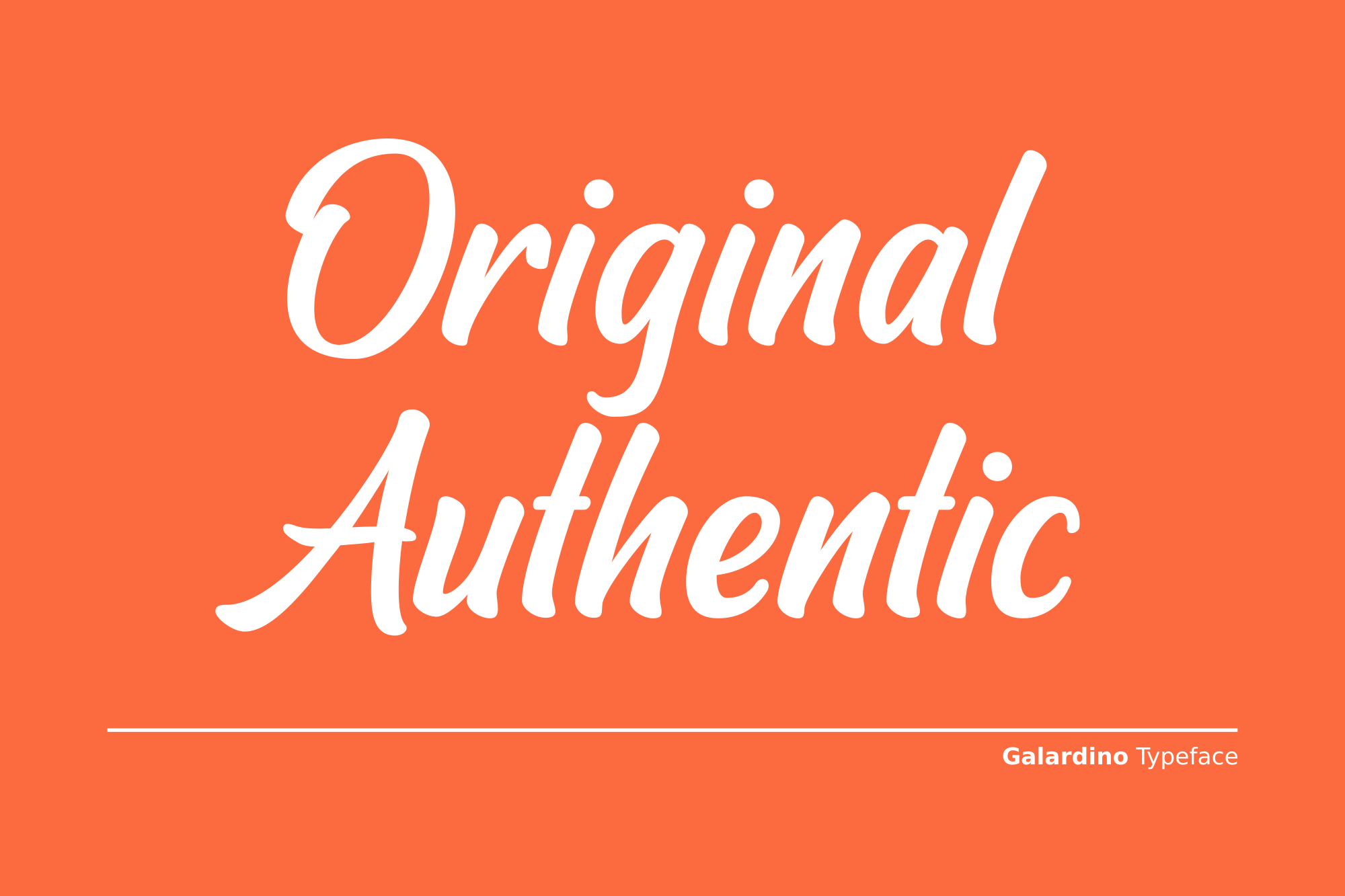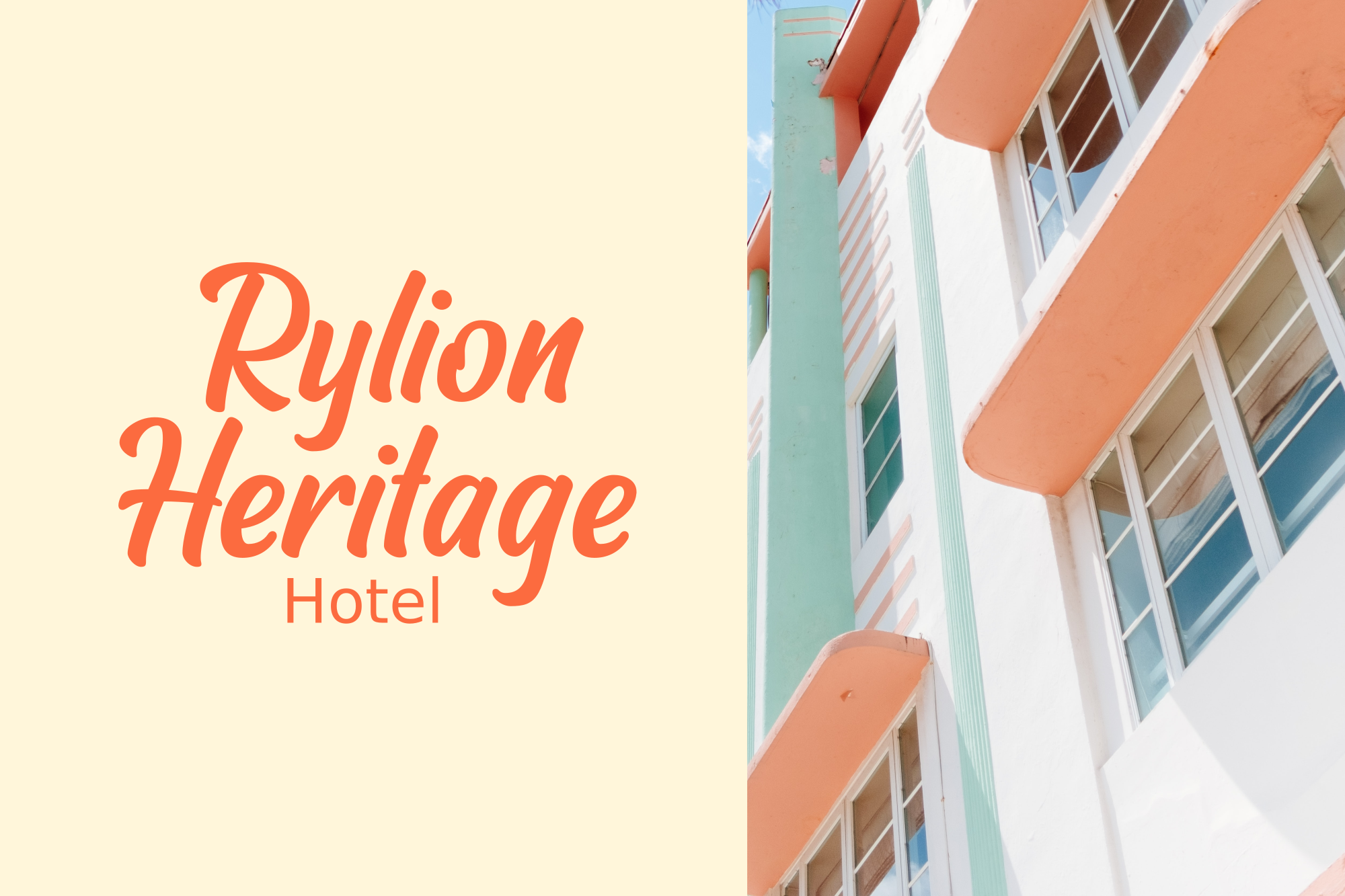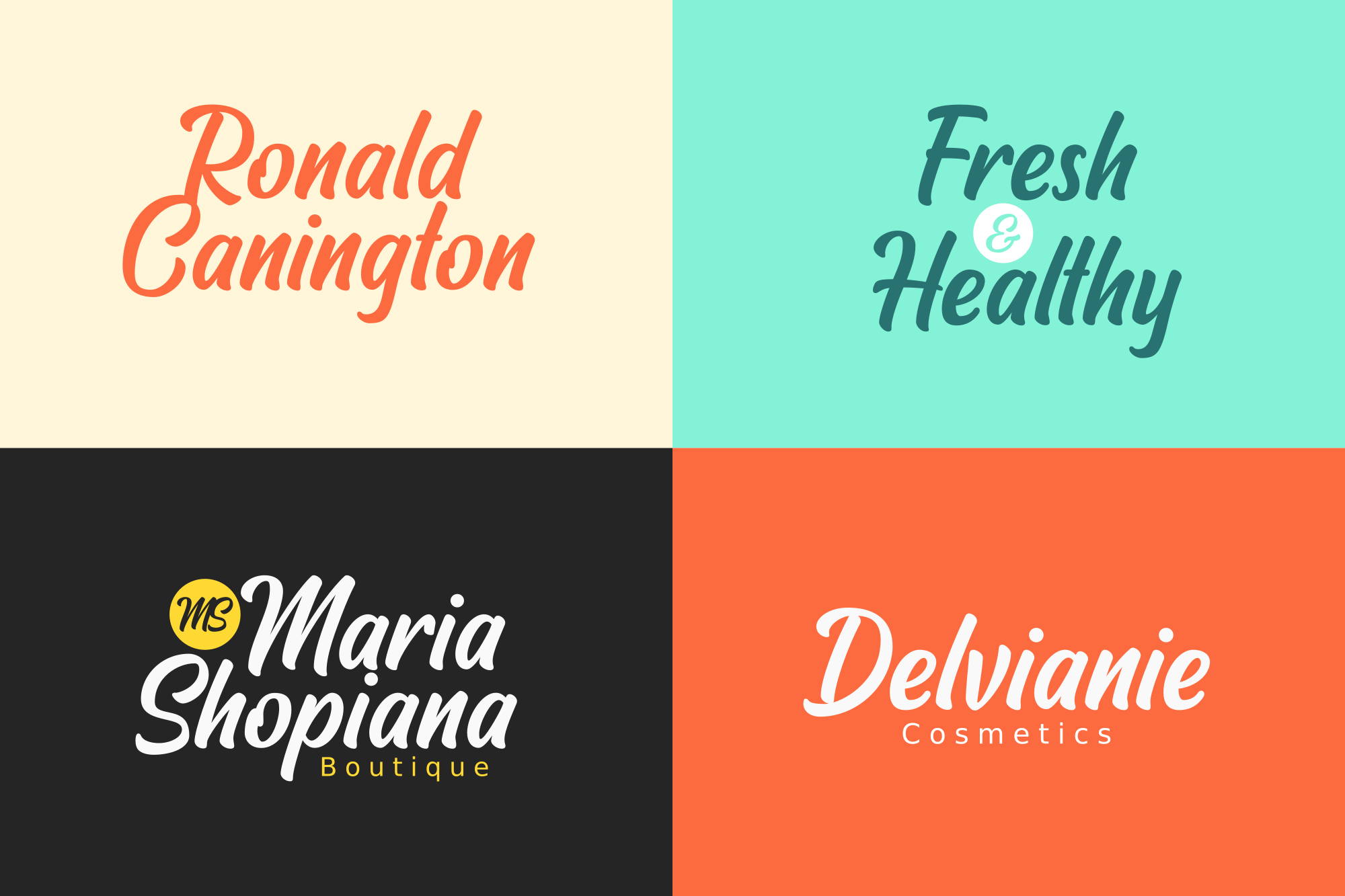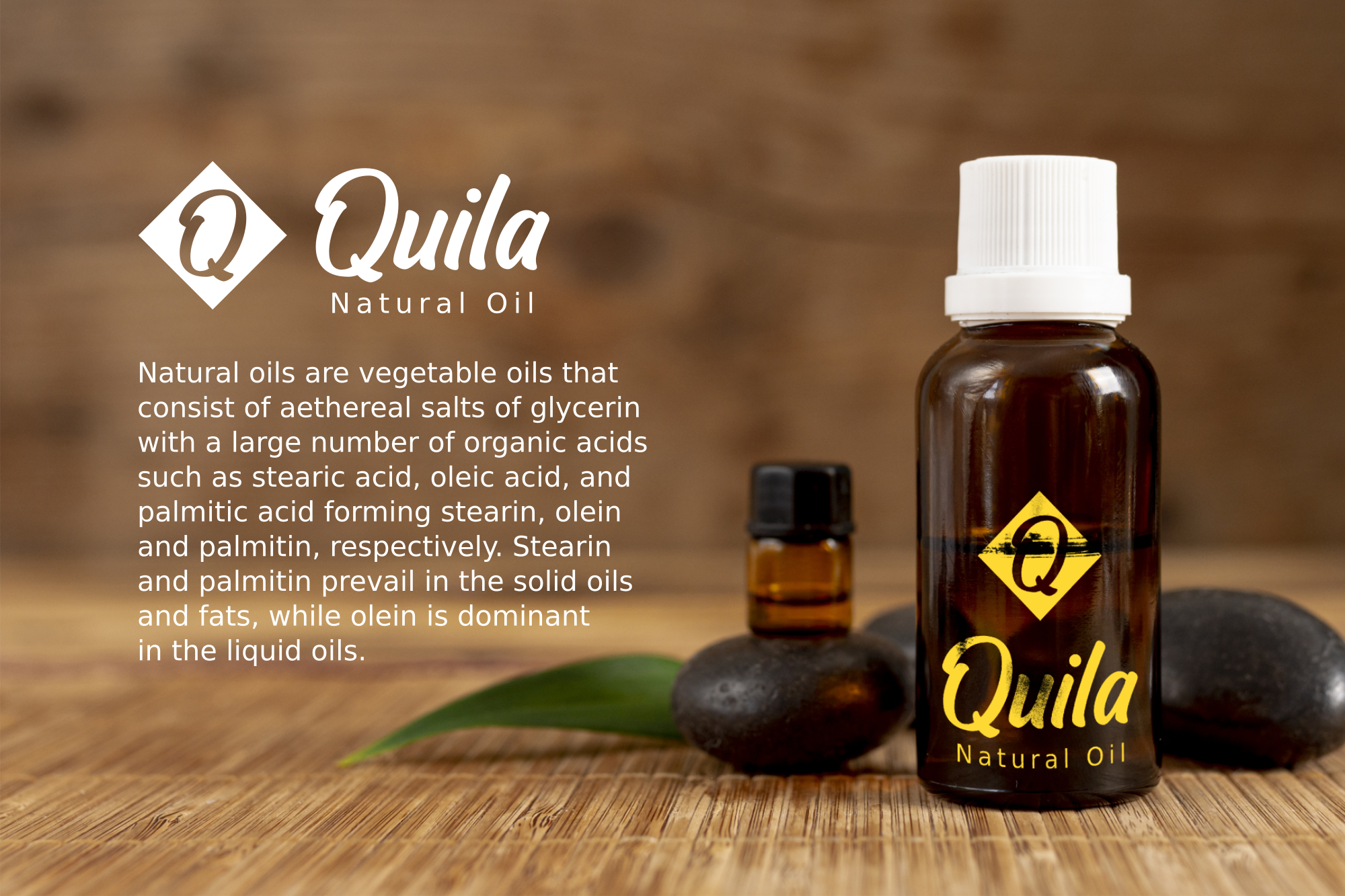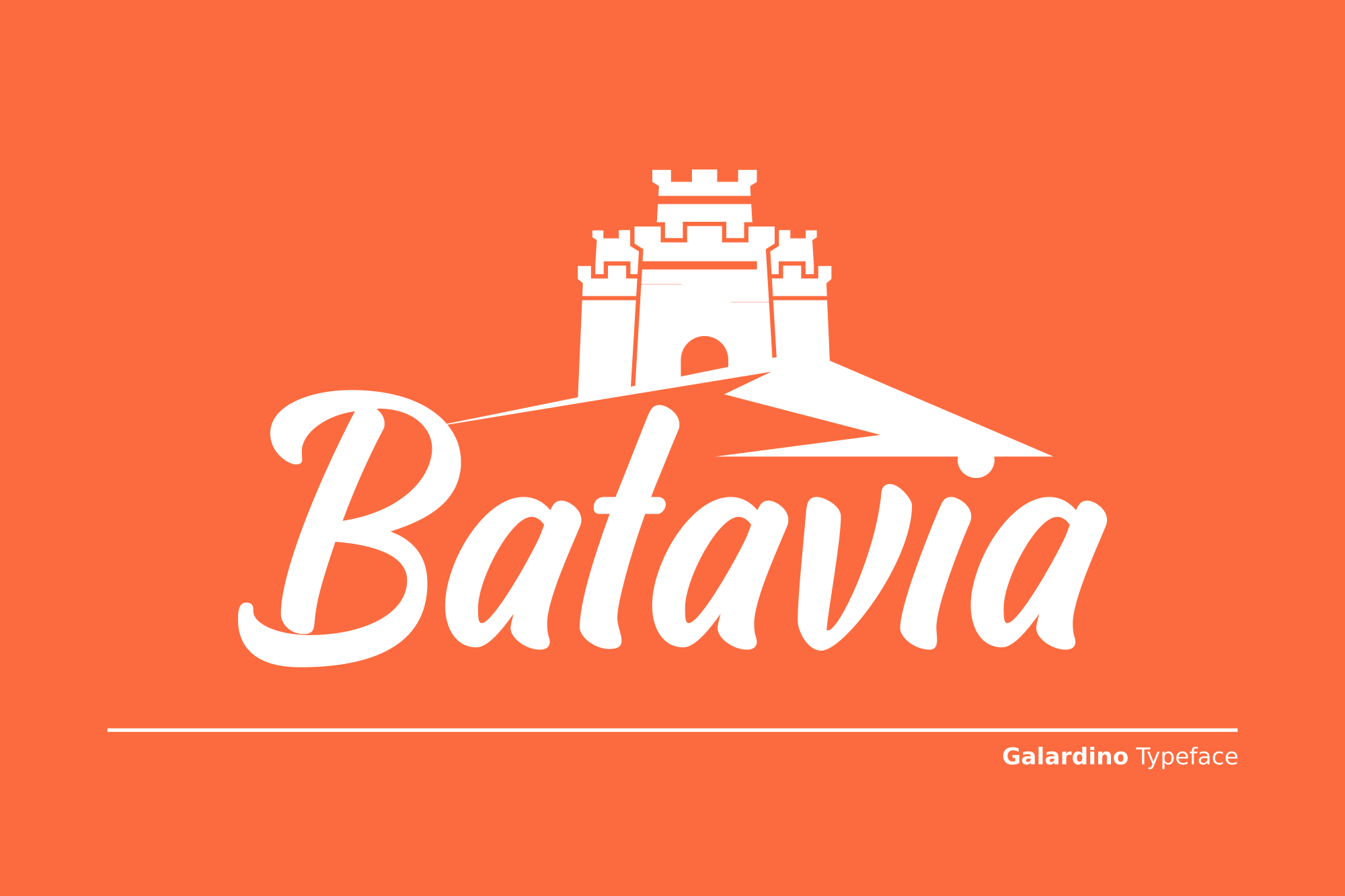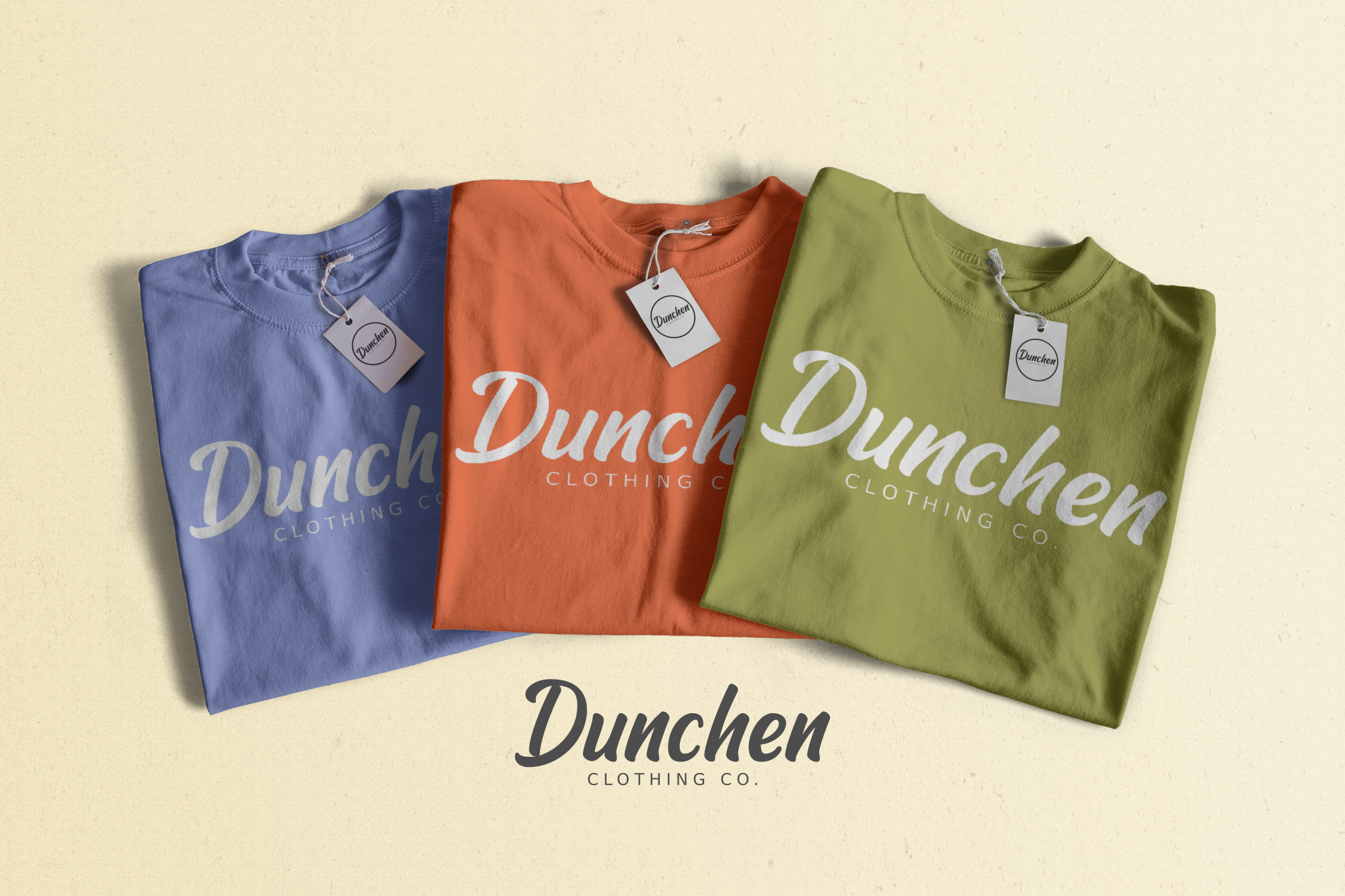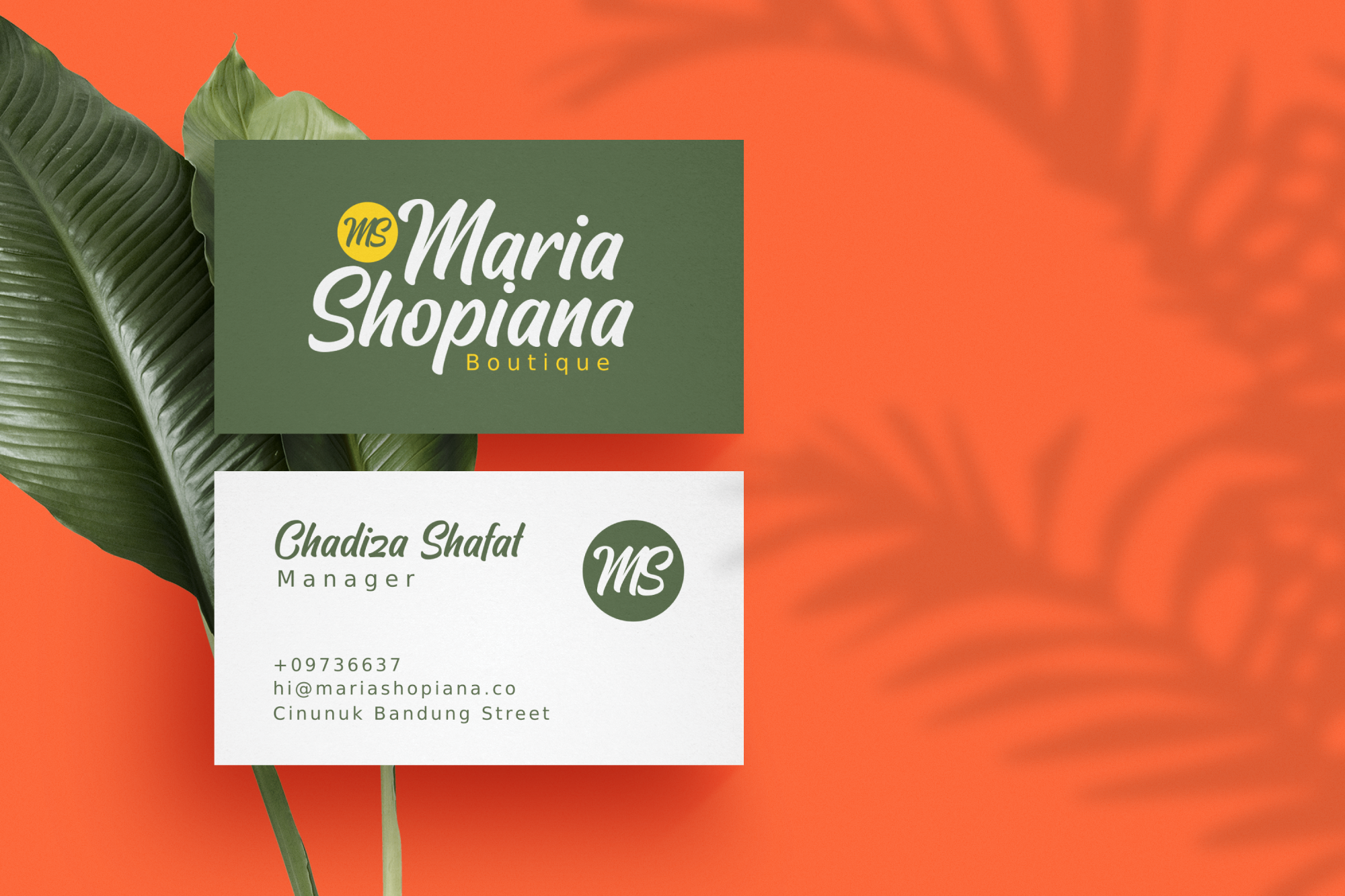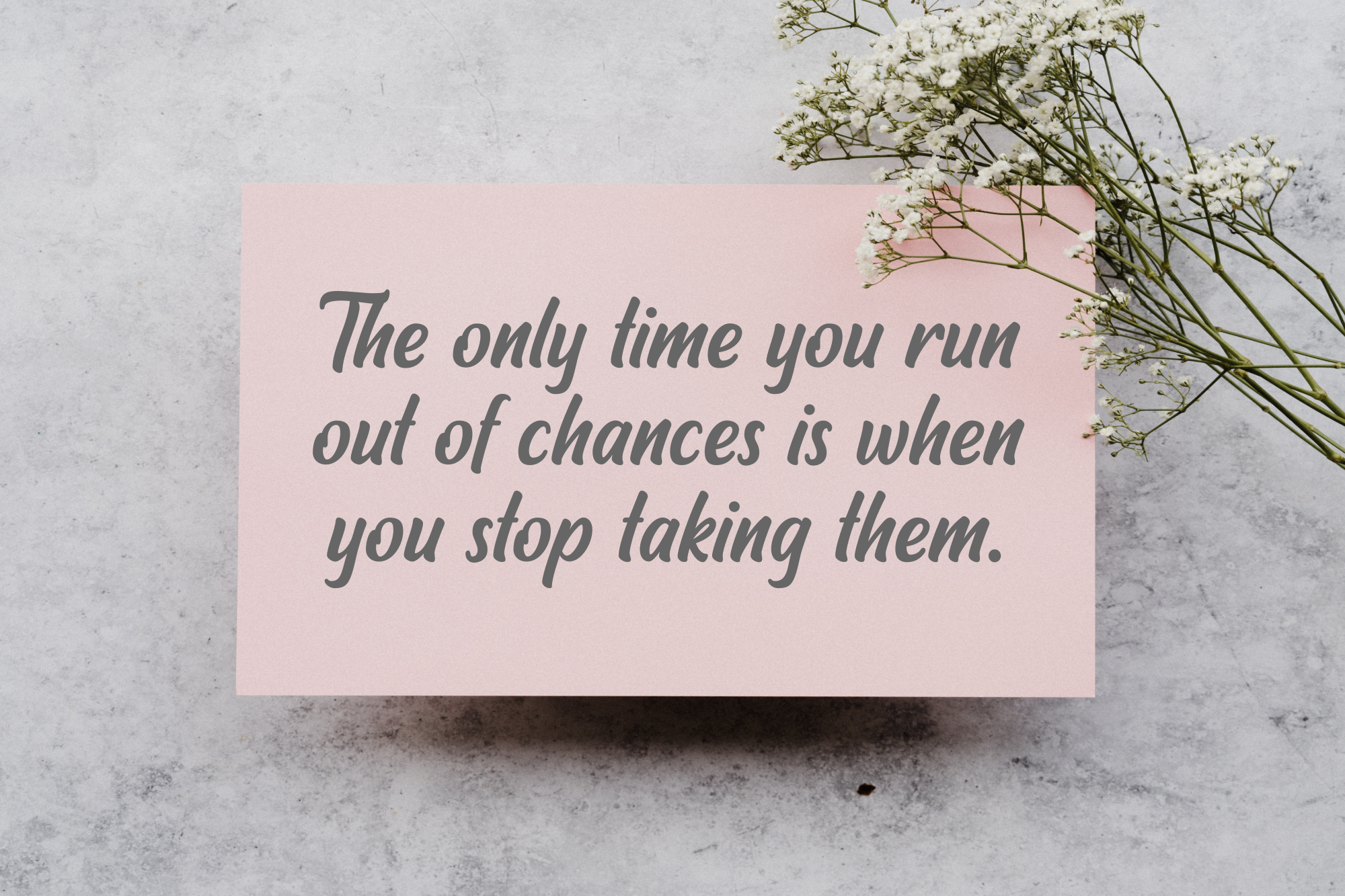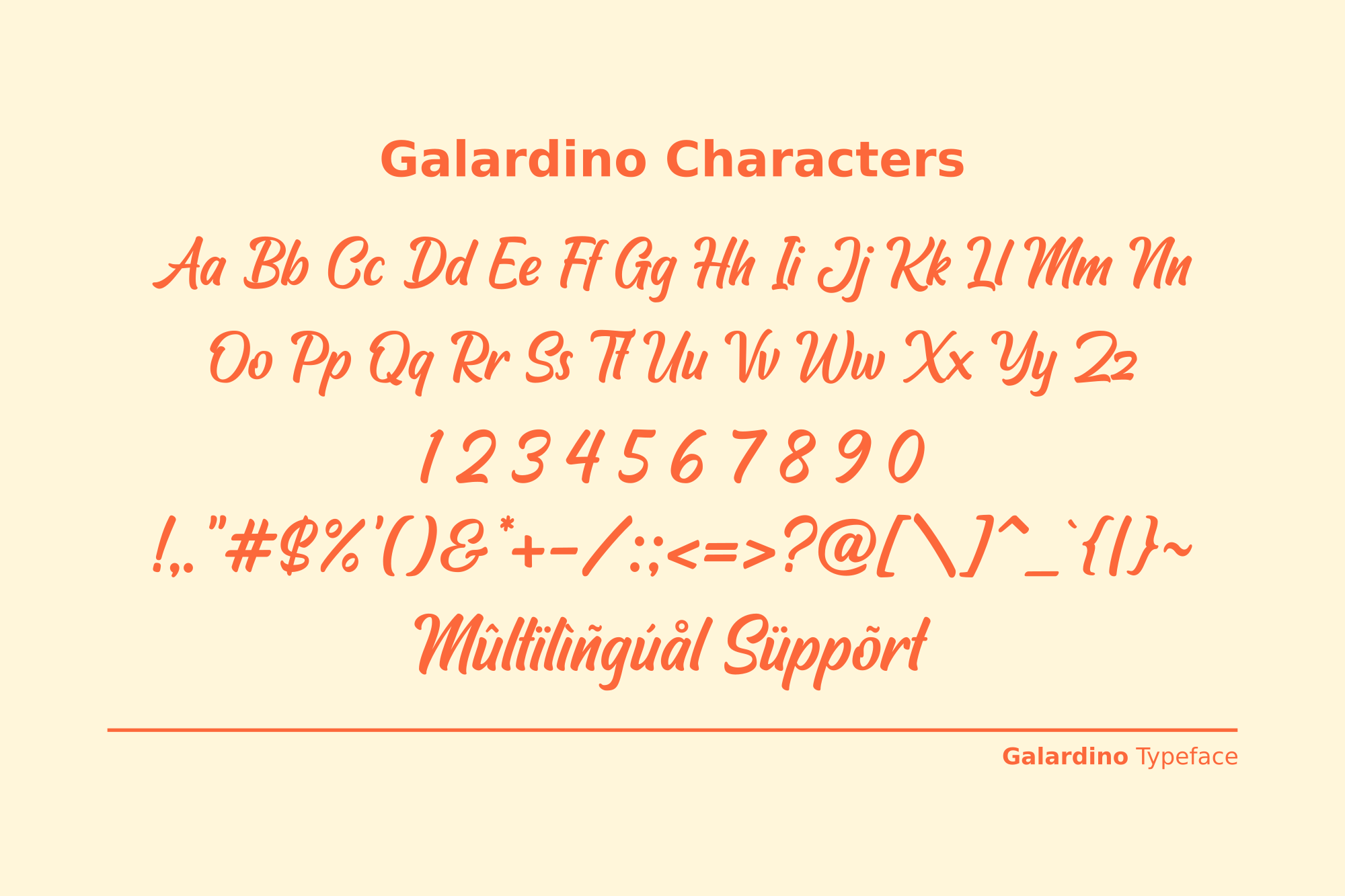
Galardino - Clean Marker Font
Galardino is a clean and simple marker font with casual charm. It is readable, down-to-earth, and versatile enough for many handmade design needs.
Galardino is a clean and simple marker font with casual charm. It is readable, down-to-earth, and versatile enough for many handmade design needs. Use it for DIY projects, logos, labels, packaging, posters, quotes, social media graphics, and more.
DIY projects, logos, labels, packaging, posters, quotes, social media graphics,